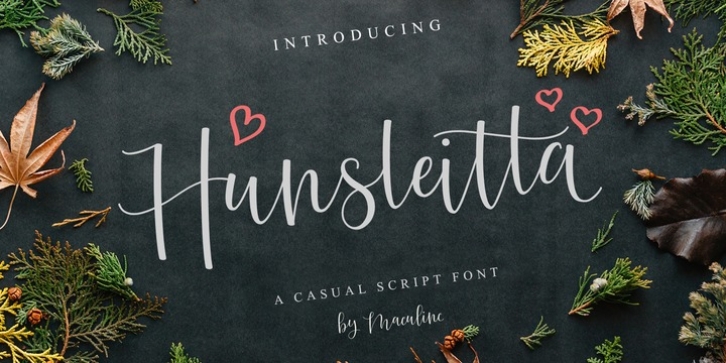
Hunsleitta was designed by Lukmanul Khikmatullah and published by Maculinc. Hunsleitta contains 1 style.
Introducing Hunsleitta! It is a typeface easy to read and so comfortable to wear. Hunsleitta is perfect for branding projects, homeware designs, and product packaging. You can use it in a logo, badge, insignia, packaging, headline, poster, t-shirt/apparel, greeting card, business card, and wedding invitation, or simply as a stylish text overlay to any background image and more. The flowing characters are ideal to make an attractive messages to your taste.
Ligatures are also available for several lowercase characters (double-letters which flow more naturally). These are only accessible via software with OpenType capability or a glyphs panel, e.g. Photoshop/Illustrator.